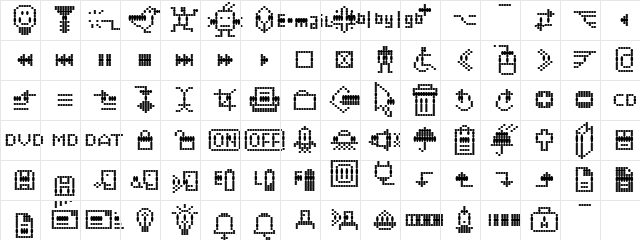
Dotto Regular
Design Context for Dotto Typeface
Dotto is rooted in pixel-grid construction, making it a natural fit for game UI, retro computing aesthetics, and digital nostalgia projects.
A natural choice for retro game titles, chiptune music branding, 8-bit UI, and digital nostalgia projects.
Pro Tip: Pair Dotto with flat colour palettes and simple geometric UI elements to reinforce its digital aesthetic.